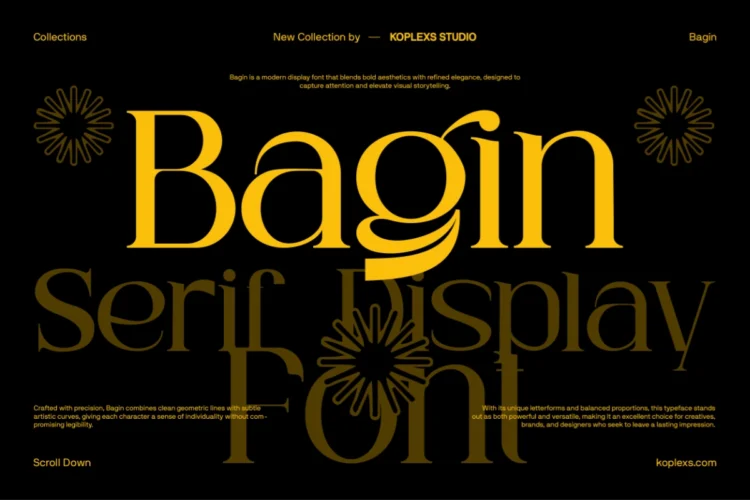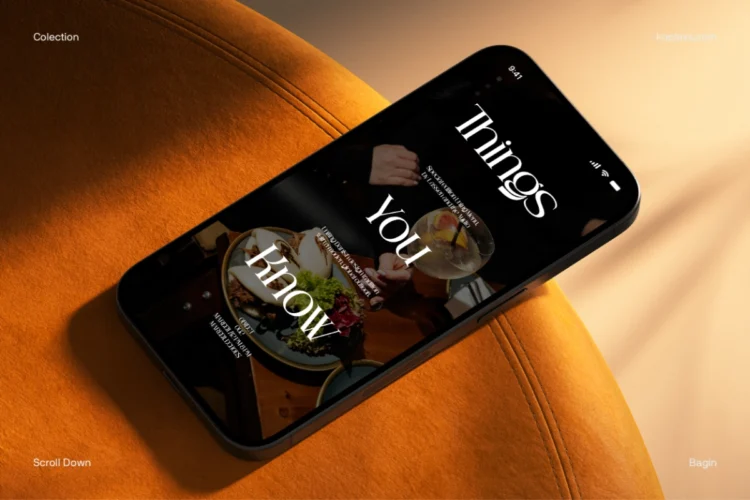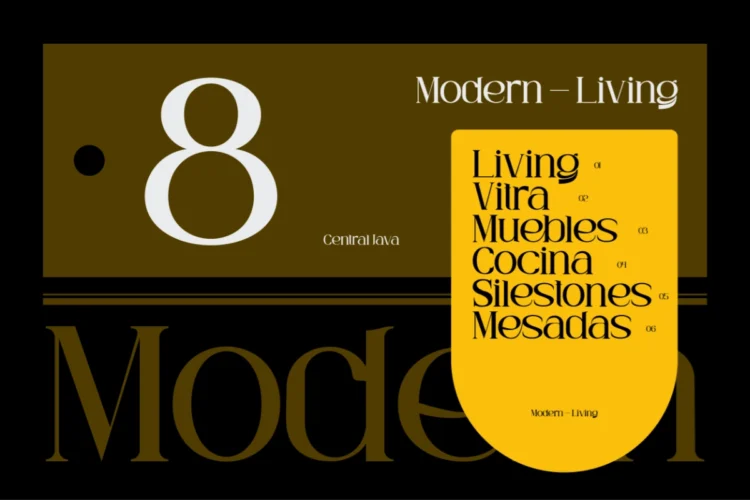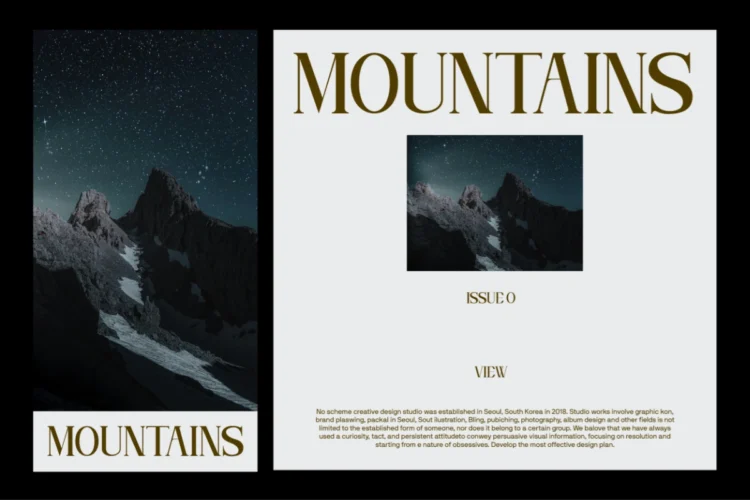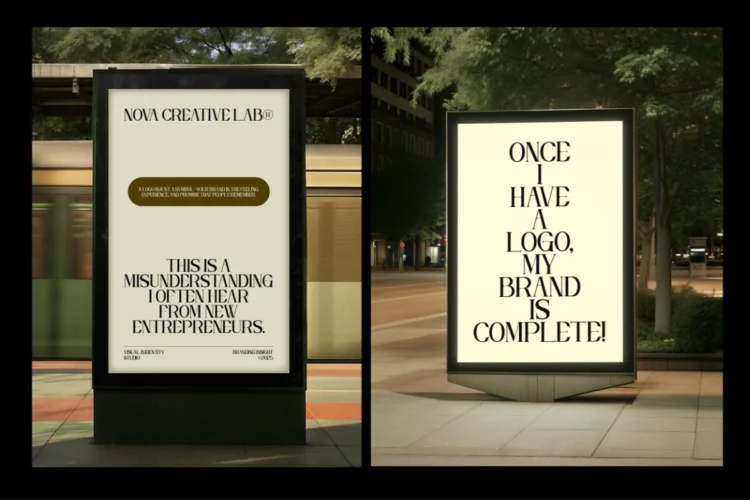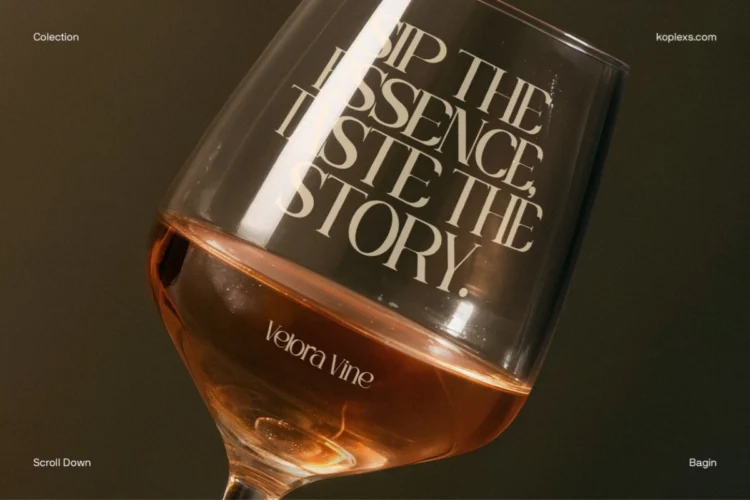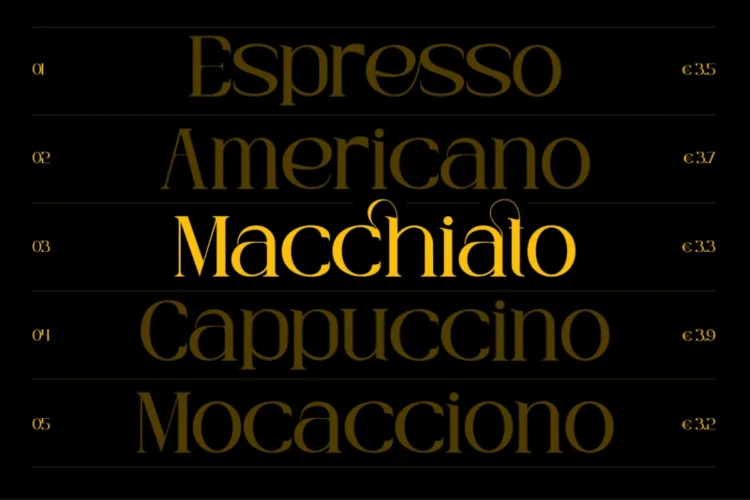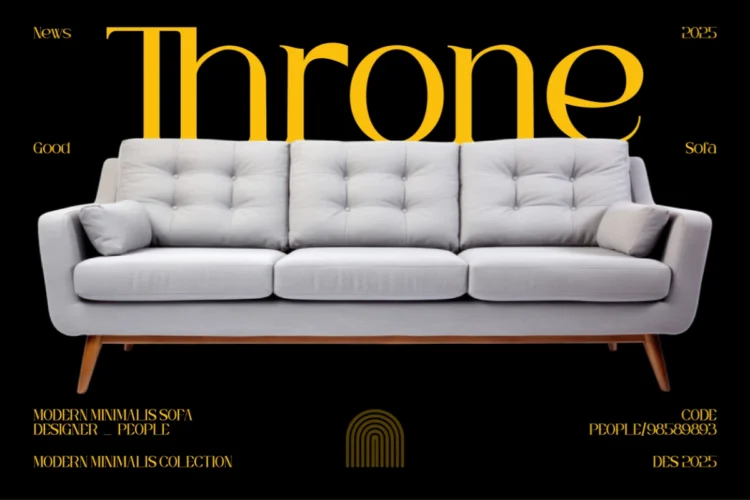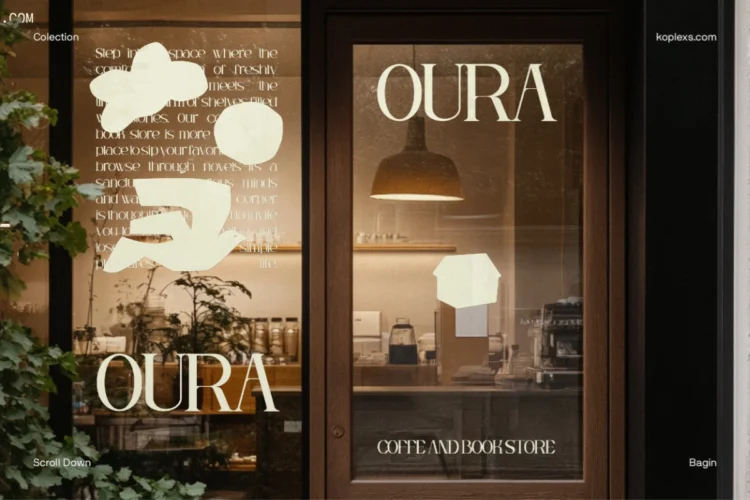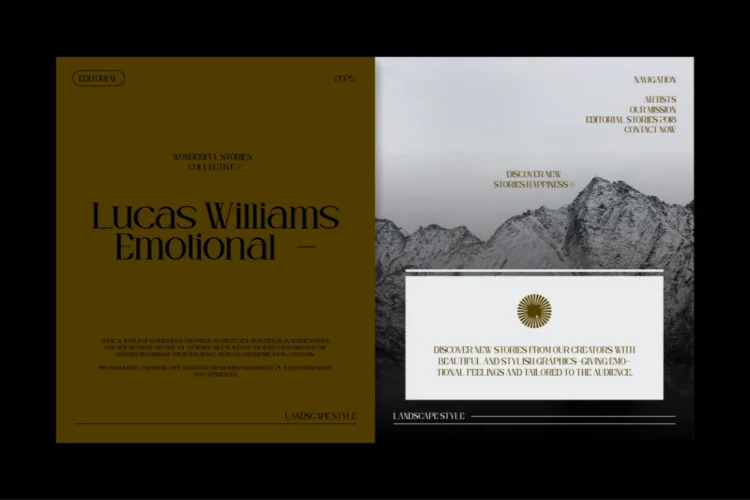
Bagin Font : Modern Editorial Serif Typeface for Elegant Branding and Luxury Design
Meet Bagin Font, a modern editorial serif typeface created for designs that need elegance, personality, and a strong visual presence. Its refined proportions, high contrast strokes, clean geometric structure, and expressive curves bring a sophisticated character to every word.
Bagin feels polished without looking overly formal. The graceful letterforms give headlines and logos a luxurious finish, while the distinctive details help your work feel original and memorable. Its balance of classic serif font inspiration and contemporary styling makes it suitable for both timeless branding and modern editorial layouts.
The font looks especially striking at large sizes, where its elegant curves, sharp serifs, and unique character shapes can take center stage. Use it for an oversized magazine headline, a minimal logo, premium packaging, or a stylish website hero section. Bagin gives ordinary text a carefully art directed appearance.
Why Choose Bagin Font Font?
Bagin Font helps your design communicate quality before the audience reads the full message. Its confident letterforms work beautifully in clean layouts, while the decorative alternatives give you more freedom to create custom looking wordmarks and headlines.
Pair Bagin with a simple sans serif for body copy to build a clear and elegant typographic hierarchy. Use generous spacing for a premium minimalist look, or arrange the letters tightly to create bold editorial compositions. Whether your project feels luxurious, artistic, fashionable, or contemporary, Bagin provides a versatile foundation with a recognizable voice.
Perfect For These Design Styles
- Luxury brand identities
- Fashion logos and campaigns
- Editorial design and magazine covers
- Beauty and cosmetic branding
- Perfume and skincare packaging
- Wine labels and premium beverages
- Restaurant and hospitality branding
- Furniture and interior design promotions
- Book covers and publishing projects
- Posters, billboards, and advertising
- Product packaging and labels
- Wedding invitations and stationery
- Website headlines and landing pages
- Social media graphics
- Art direction and creative portfolios
- Minimalist merchandise design